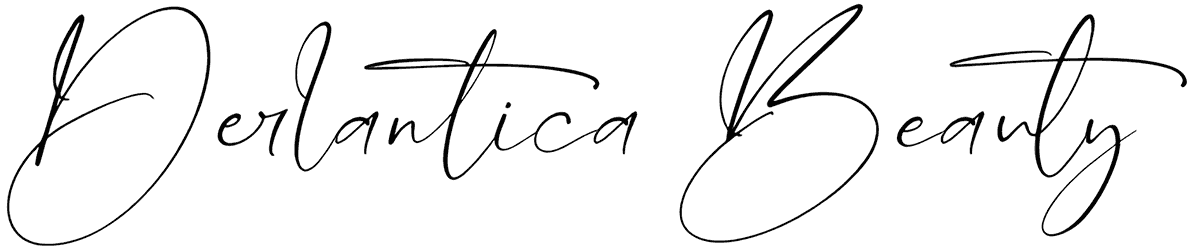
Derlantica Beauty Font
If you are looking for a delicate and chic face to enrich your context, this offer would be a royal pickup. This wedding font has a realistic and smooth letter style that can be harmonized with classic or contemporary layouts. As a handwritten font with two versions, Derlantica Beauty is an ace illustration for business cards, logos, invitations, planners, or many others the same.